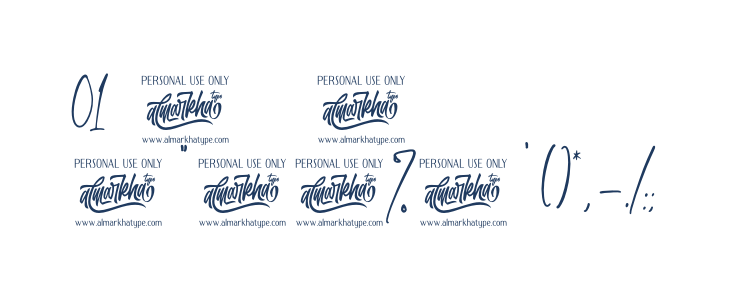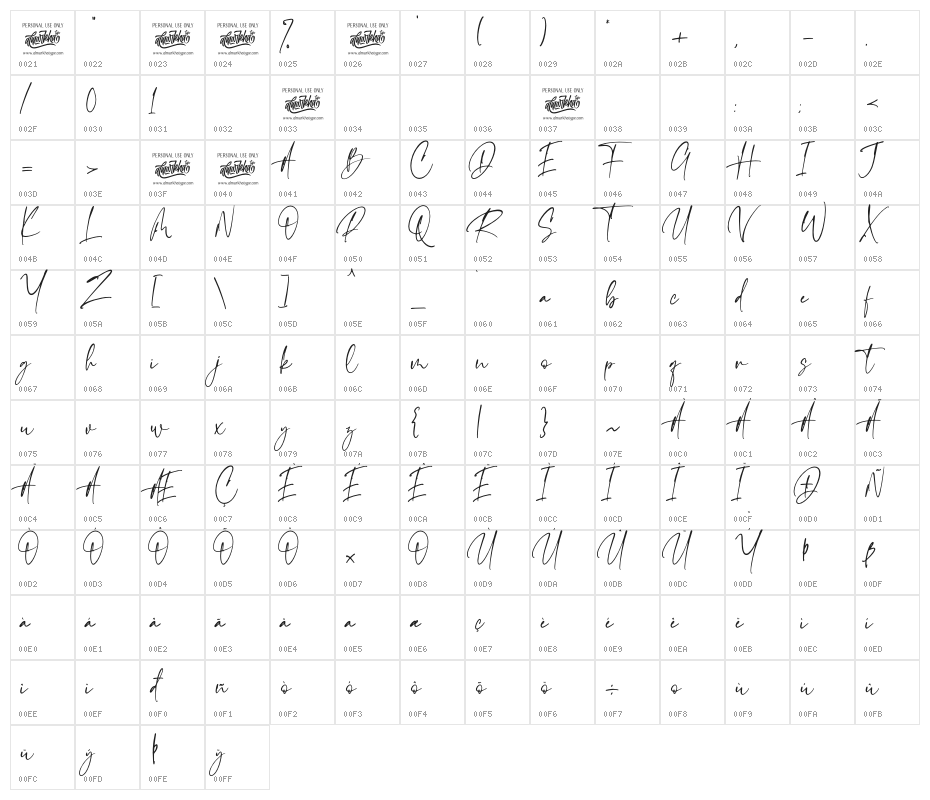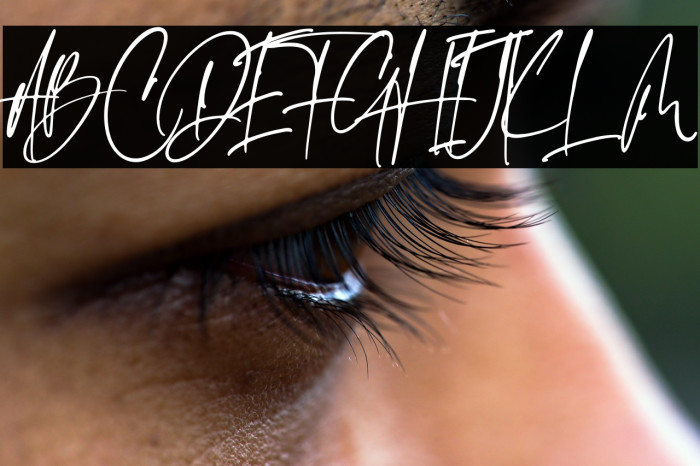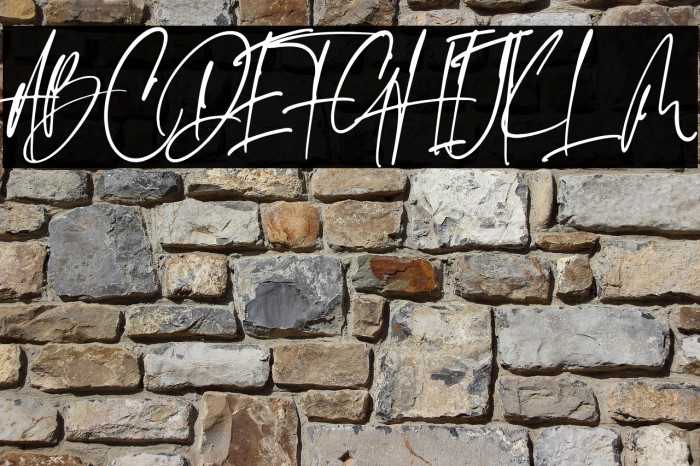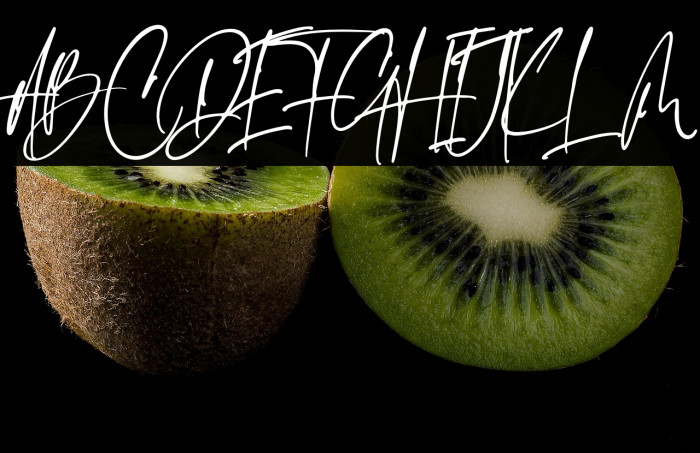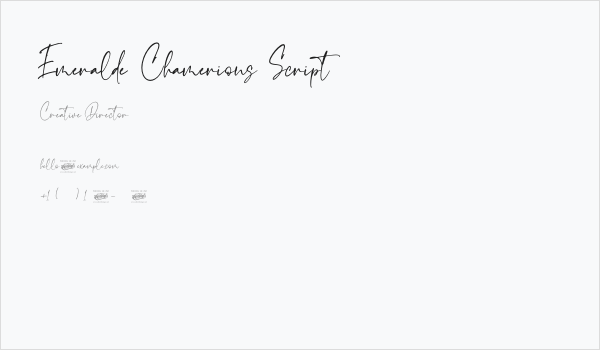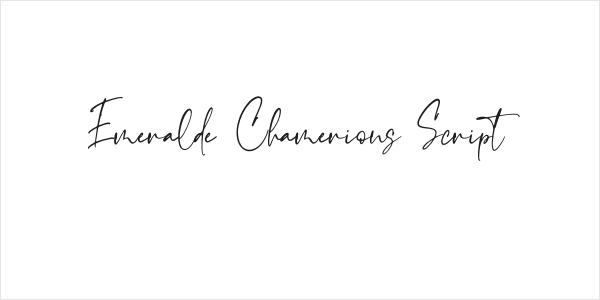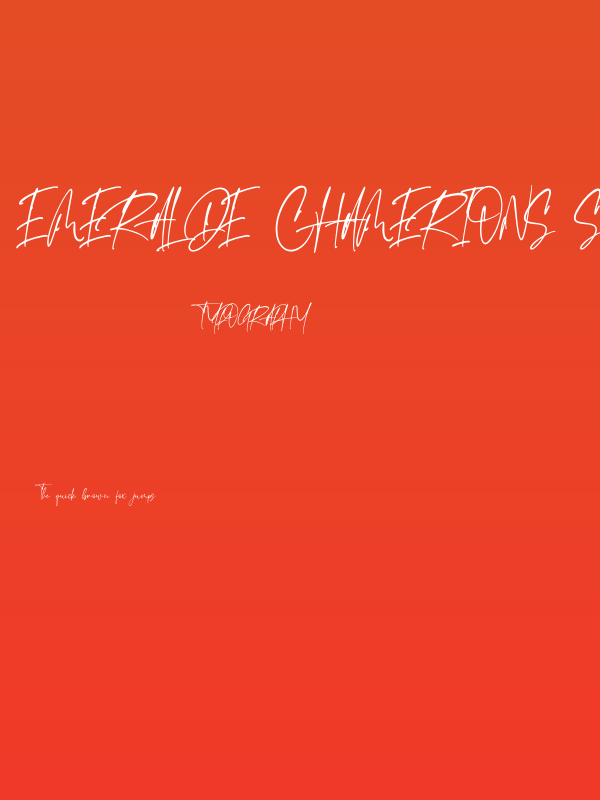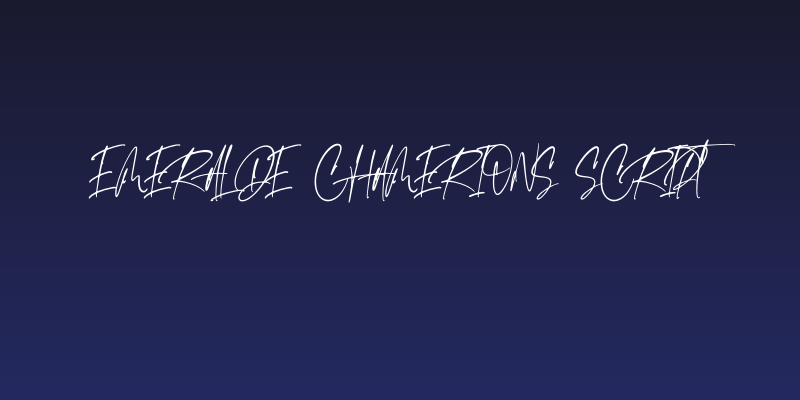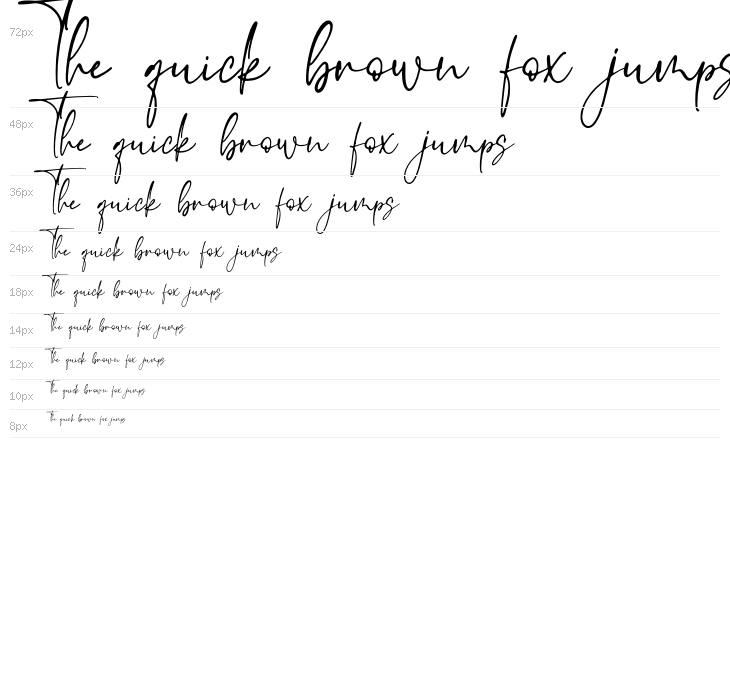
Emeralde Chamerions Script Font
Emeralde Chamerions Script Description
This font exudes a dynamic and expressive style with its fluid, handwritten script. The letters are characterized by their sweeping curves and elegant loops, giving it a personal and artistic touch. The uppercase letters are bold and dramatic, while the lowercase letters maintain a more delicate and flowing appearance. The numbers and special characters follow the same stylistic approach, ensuring a cohesive look across all elements. This font is perfect for projects that require a touch of sophistication and creativity, such as invitations, branding, or artistic designs.
| Use Case | Logos, Invitations, Artistic designs |
| Proposed Projects | Ideal for invitations, branding, artistic designs, and creative projects. |